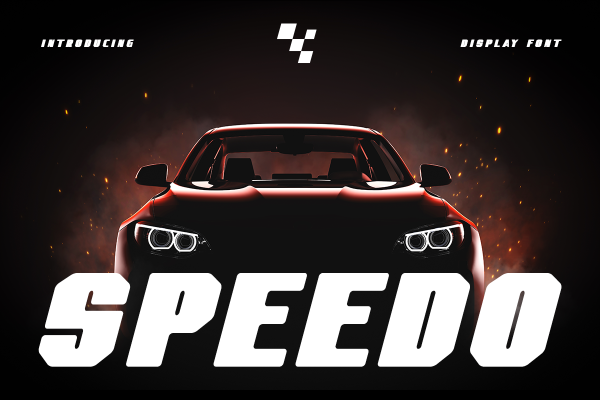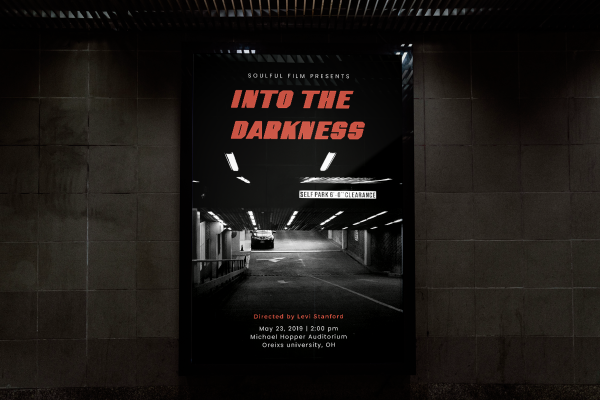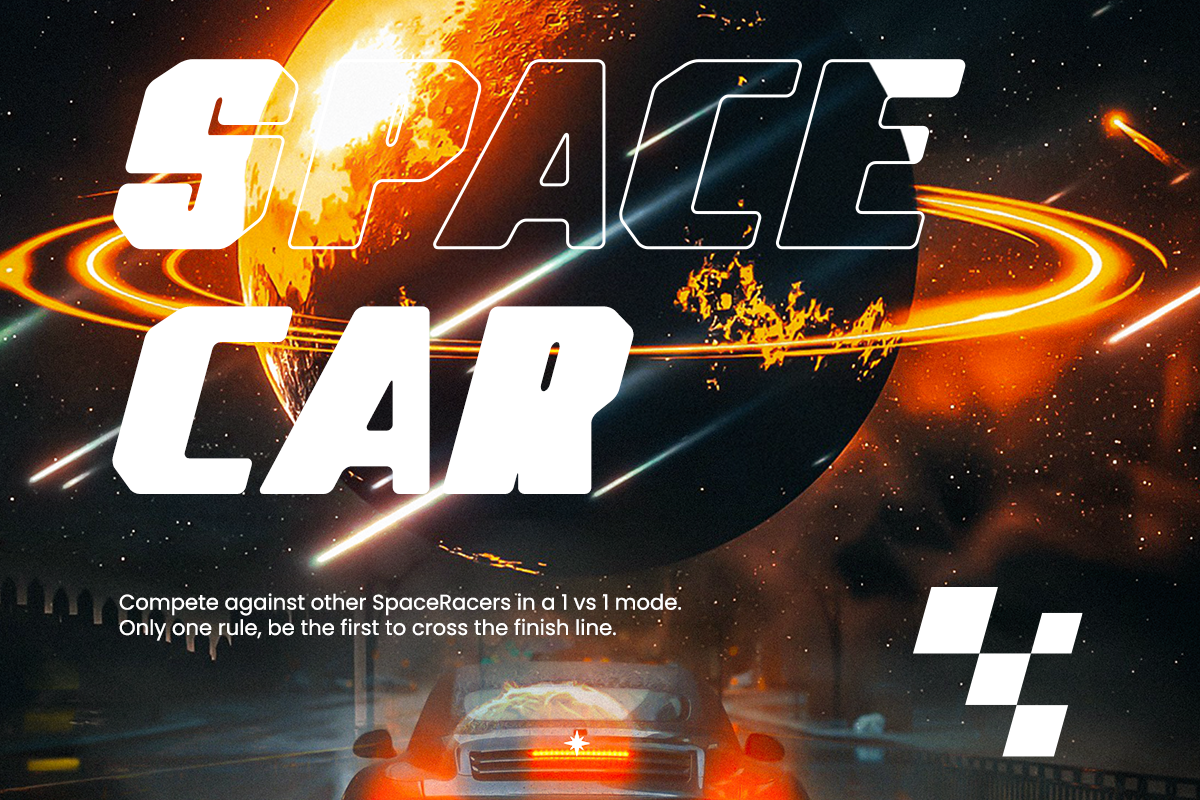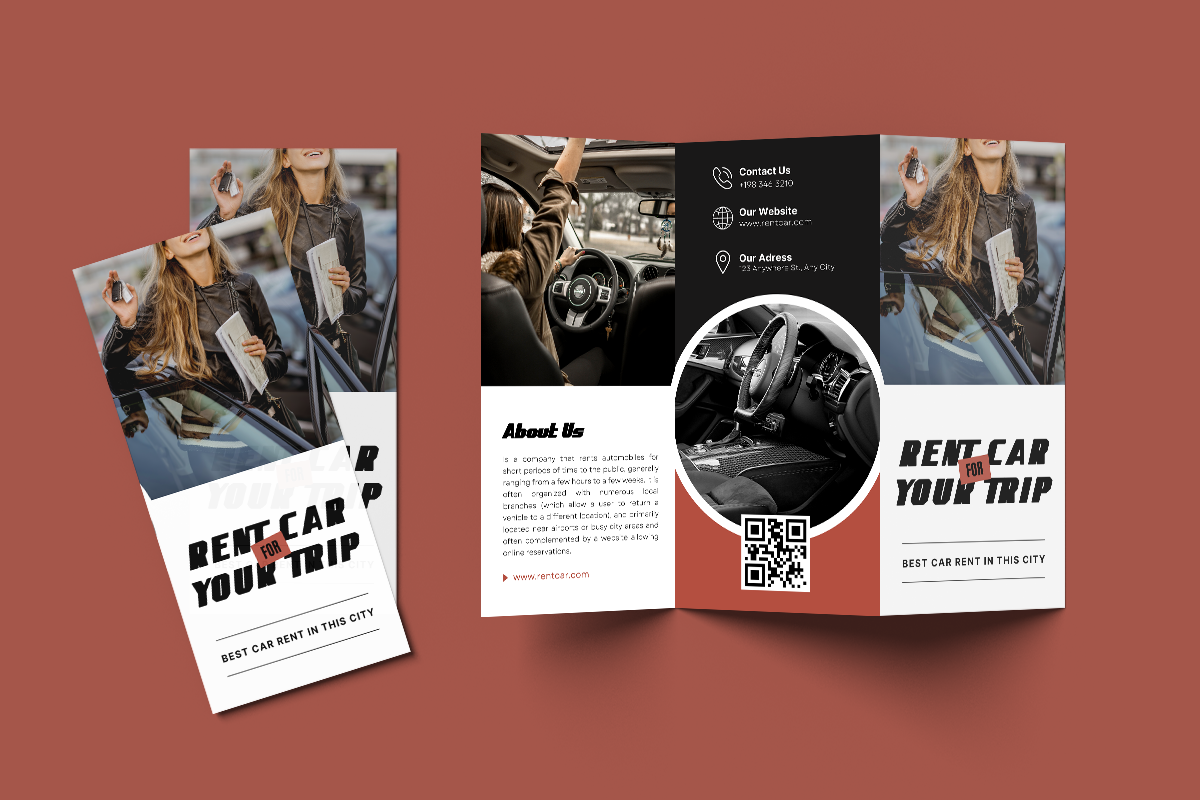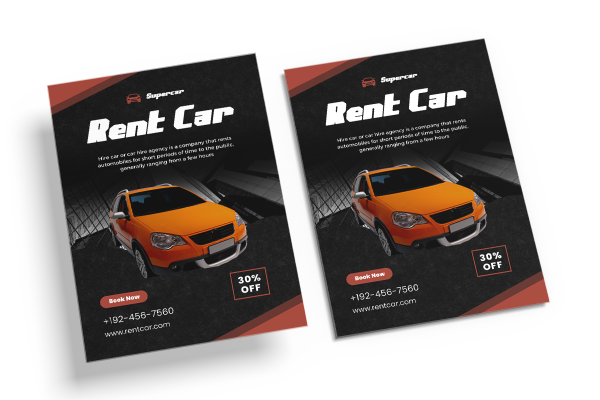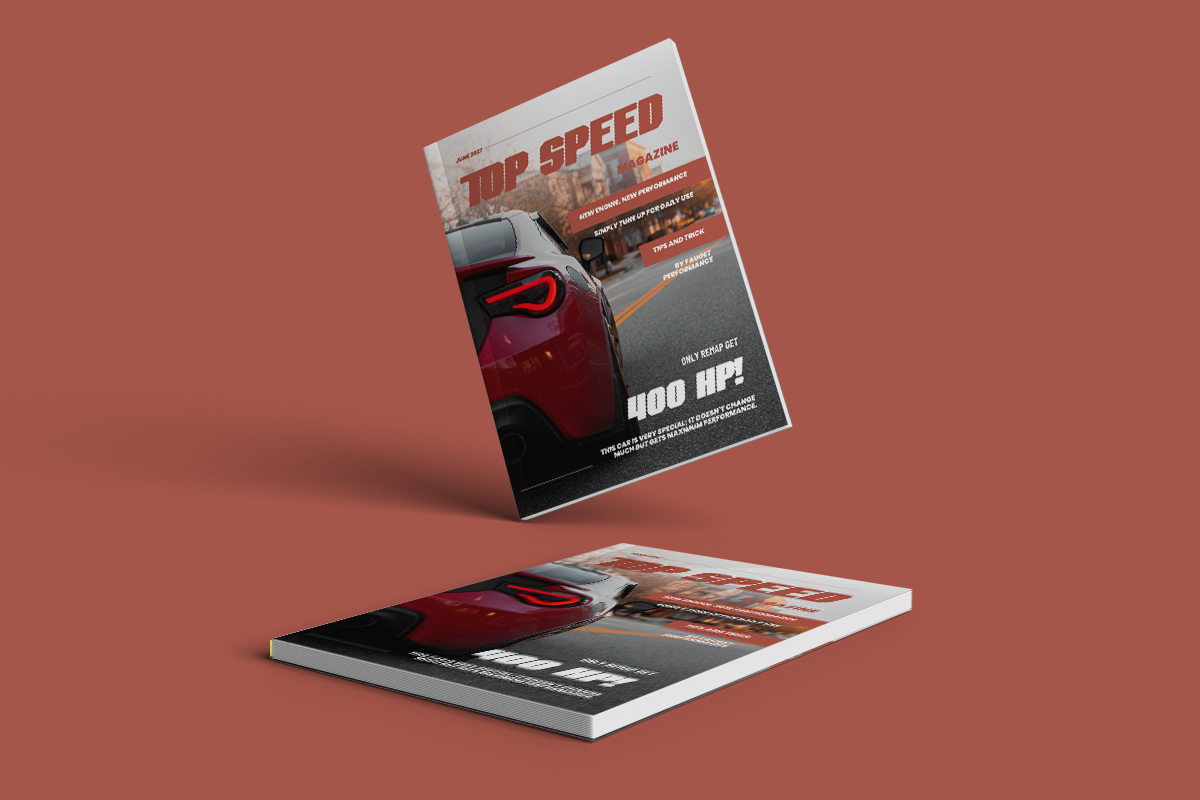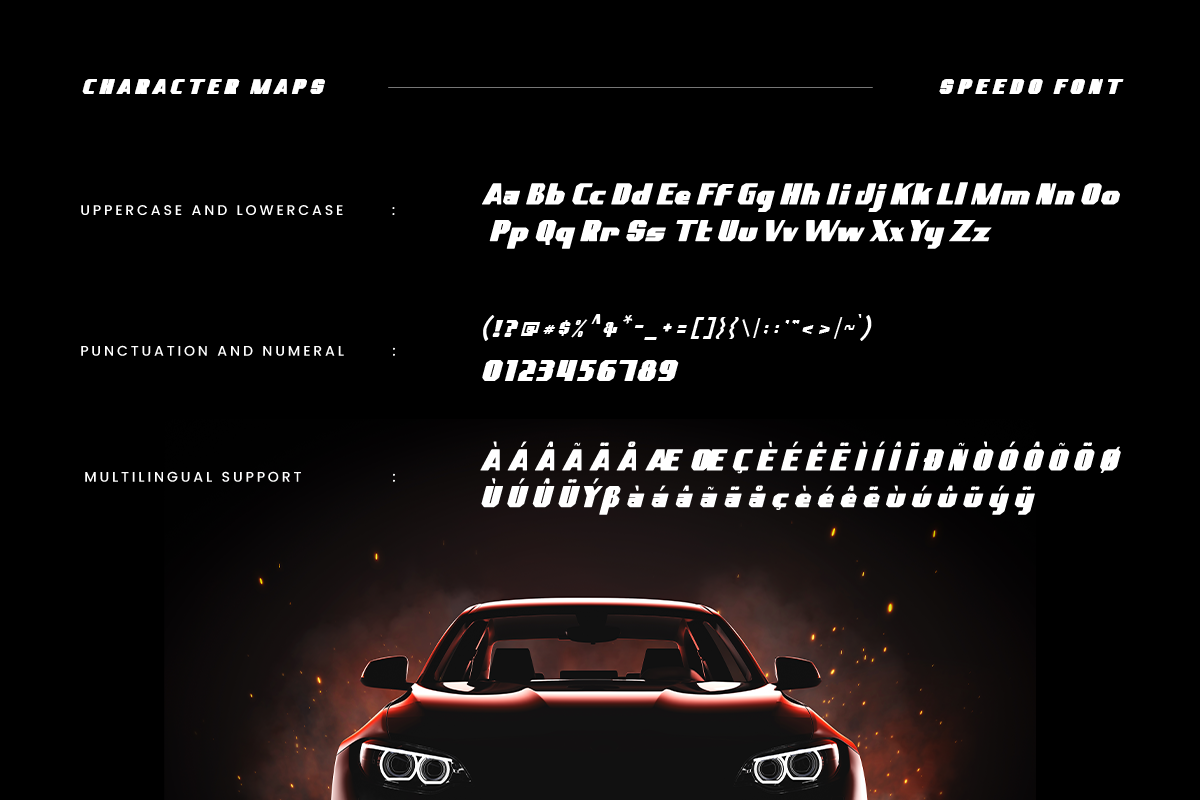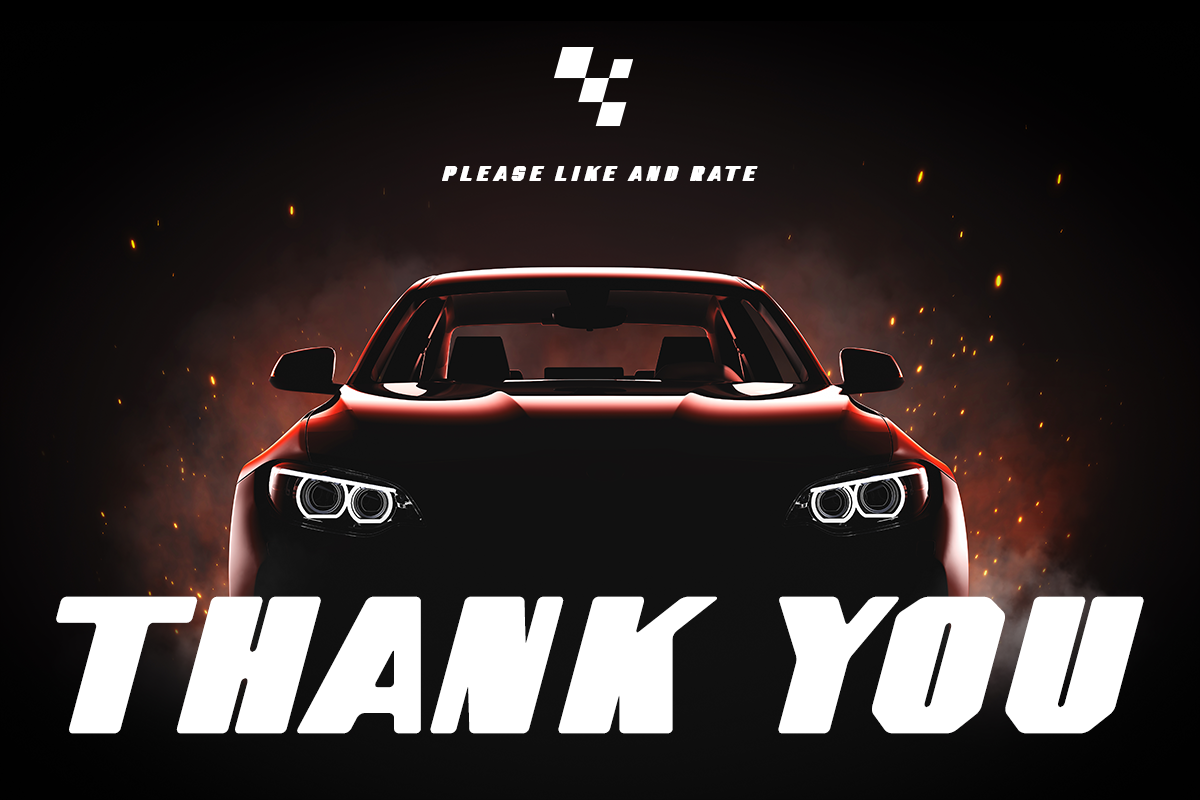
Speedo Display Font is a familiar name to people who like to work in the automotive world. He is represented as a speedometer of vehicles that are moving on the streets. Speedo font comes with a simple and standard appearance. Not accompanied by any curves or additions, he is still charming and able to anesthetize every pair of eyes that see him. Speedo font can be applied to event titles that use automotive as the theme, such as racing, touring, and off-road events. This font can contribute to building a good impression on everyone who sees the announcement about the event. The event mentioned earlier is an event that tries to gather a large number of people, so the use of font types must be considered carefully. In addition to the things mentioned above, Speedo font can be used for writing on brochures whose contents are promotions and car rentals. The strong characteristics of this font can let people know the contents of the brochure just by looking at the title and font used. Knowledge books that contain theories about automotive can also take advantage of this type of font to be applied on the cover. Our collection of Espot & Futuristic fonts is compatible to use as Figma fonts, Canva fonts, Freepik Fonts, and Adobe Fonts]. They also work as Windows Fonts, and Apple Fonts. For your social media needs, you can use and install fonts in our collection of Espot & Futuristic fonts to use as Instagram Fonts, Facebook Fonts, and Twitter Fonts.